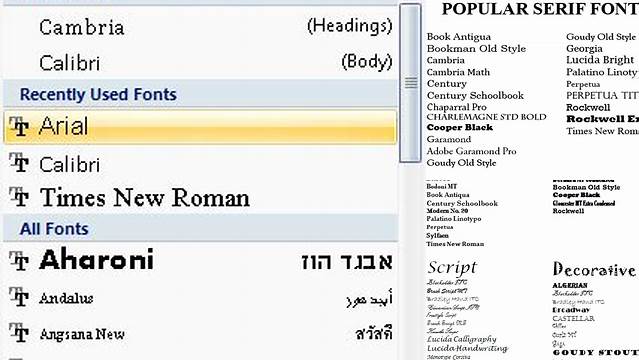
Serif Fonts In Word: A Complete List & Guide
Are you looking to enhance the readability and visual appeal of your documents in Microsoft Word? One of the most effective ways to do this is by choosing the right font. Serif fonts, with their classic and elegant letterforms, are particularly well-suited for creating a polished and professional look. In this article, we'll explore a variety of serif fonts available in Microsoft Word, discussing their characteristics, best uses, and how to access them. So, if you're ready to take your document design to the next level, let's dive in!
Understanding Serif Fonts
Before we delve into the specific serif fonts available in Microsoft Word, let's first understand what defines a serif font. Serifs are the small decorative strokes that extend from the ends of the main strokes of a letter. These serifs guide the eye along the lines of text, making serif fonts generally easier to read in large blocks of text, such as in books, newspapers, and reports.
Characteristics of Serif Fonts
- Readability: Serif fonts are known for their high readability, especially in print. The serifs help to distinguish individual letters and create a visual flow that reduces eye strain.
- Formality: Serif fonts often convey a sense of formality, tradition, and authority. They are commonly used in professional documents, academic papers, and official correspondence.
- Variety: There is a wide variety of serif fonts available, each with its own unique style and personality. Some are classic and timeless, while others are more modern and contemporary.
- Visual Appeal: Serif fonts can add a touch of elegance and sophistication to your documents, making them visually appealing and engaging for the reader.
How to Choose the Right Serif Font
Choosing the right serif font for your document depends on several factors, including the purpose of the document, the target audience, and the overall tone you want to convey. Here are some tips to help you make the right choice:
- Consider the Purpose: Are you writing a formal report, a creative story, or a marketing brochure? The purpose of your document will influence the type of serif font you choose. For example, a formal report may benefit from a classic serif font like Times New Roman or Garamond, while a creative story might benefit from a more decorative serif font like Book Antiqua.
- Know Your Audience: Who are you writing for? Consider the demographics, interests, and expectations of your target audience. A younger audience may appreciate a more modern serif font, while an older audience may prefer a more traditional one.
- Think About Tone: What kind of tone do you want to convey? A serif font can help you set the tone of your document, whether it's formal, informal, serious, or playful. Choose a font that reflects the overall message you want to communicate.
- Test and Experiment: Don't be afraid to try out different serif fonts and see how they look in your document. Experiment with different sizes, styles, and colors to find the perfect combination.
Popular Serif Fonts in Microsoft Word
Microsoft Word comes with a wide selection of serif fonts to choose from. Here are some of the most popular options, along with their characteristics and best uses:
Times New Roman
Times New Roman is perhaps the most well-known and widely used serif font in the world. It is a classic and versatile font that is suitable for a wide range of applications. Times New Roman is known for its high readability, clean lines, and professional appearance. It is often used in books, newspapers, reports, and academic papers. Guys, this font is like the reliable friend you can always count on!
Garamond
Garamond is another classic serif font that is highly regarded for its elegance and readability. It has a slightly more refined and sophisticated appearance than Times New Roman, making it a popular choice for books, magazines, and corporate documents. Garamond is known for its graceful curves and delicate serifs, which give it a timeless and sophisticated look. If you want to add a touch of class, Garamond is your go-to.
Georgia
Georgia is a serif font that was designed specifically for on-screen reading. It has a larger x-height and wider proportions than many other serif fonts, making it easier to read on computer screens. Georgia is a good choice for websites, emails, and other digital documents. It's also quite readable in print, making it a versatile option. Think of Georgia as the chill, modern serif – easy on the eyes!
Courier New
Courier New is a monospaced serif font, which means that each letter takes up the same amount of horizontal space. This makes it a good choice for writing code, creating tables, and other applications where consistent spacing is important. While it may not be the most stylish font, Courier New is highly functional and easy to read. This one’s the no-nonsense font for all your techy needs.
Book Antiqua
Book Antiqua is a serif font that is known for its warm and inviting appearance. It has a slightly rounded and informal look, making it a good choice for books, brochures, and other documents where you want to create a friendly and approachable tone. Book Antiqua is also a good choice for body text, as it is easy to read and doesn't cause eye strain. Imagine curling up with a good book – Book Antiqua is that feeling in font form!
How to Access Serif Fonts in Microsoft Word
Accessing serif fonts in Microsoft Word is a straightforward process. Here's how you can do it:
- Open Microsoft Word: Launch the Microsoft Word application on your computer.
- Create a New Document or Open an Existing One: You can either start with a blank document or open a document you've already been working on.
- Select the Text: Highlight the text you want to change the font for. If you want to change the font for the entire document, you can press
Ctrl + A(orCmd + Aon a Mac) to select everything. - Access the Font Menu:
- Using the Ribbon: Go to the "Home" tab on the ribbon. In the "Font" group, you'll see a dropdown menu displaying the current font. Click on this dropdown menu to see a list of available fonts.
- Using the Mini Toolbar: When you select text, a mini toolbar may appear near your cursor. This toolbar also includes a font dropdown menu.
- Choose Your Serif Font: Scroll through the list of fonts until you find the serif font you want to use. Click on the font to apply it to the selected text.
- Adjust Font Size and Style: Once you've selected your font, you can adjust the font size, style (bold, italic, underline), and color using the options in the "Font" group on the "Home" tab.
Tips for Using Serif Fonts Effectively
To make the most of serif fonts in your Microsoft Word documents, keep these tips in mind:
- Use Serif Fonts for Body Text: Serif fonts are generally easier to read in large blocks of text, making them a good choice for the main body of your document.
- Pair Serif Fonts with Sans-Serif Fonts: For headings and subheadings, consider using a sans-serif font to create contrast and visual interest. A good combination can make your document more engaging and easier to navigate.
- Be Consistent: Use the same serif font throughout your document to maintain a consistent look and feel. Avoid mixing too many different fonts, as this can make your document look cluttered and unprofessional.
- Consider Line Spacing and Margins: Adjust the line spacing and margins to improve readability. A little extra space between lines and around the edges of the page can make a big difference.
- Proofread Carefully: Always proofread your document carefully before sharing it to catch any errors in spelling, grammar, or formatting. A polished document will make a better impression on your readers.
Serif fonts are a valuable tool for enhancing the readability and visual appeal of your Microsoft Word documents. By understanding the characteristics of different serif fonts and using them effectively, you can create documents that are both professional and engaging. So go ahead, experiment with different serif fonts and discover the perfect one for your next project! You've got this, guys!